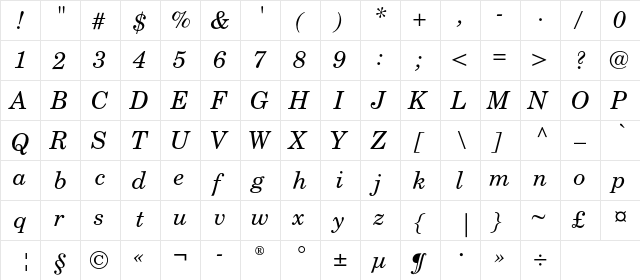
NewCenturySchlbk Cyr Italic Regular
Design Context for NewCenturySchlbk Cyr Italic Typeface
NewCenturySchlbk Cyr Italic offers clean, dependable letterforms without strong stylistic allegiance, making it a practical choice for designers who need flexibility. The dynamic lean of this cut emphasises speed and emphasis in any layout.
Pro Tip: Use NewCenturySchlbk Cyr Italic for emphasis, pull quotes, and subheadings where its slanted energy can add rhythm to the layout.